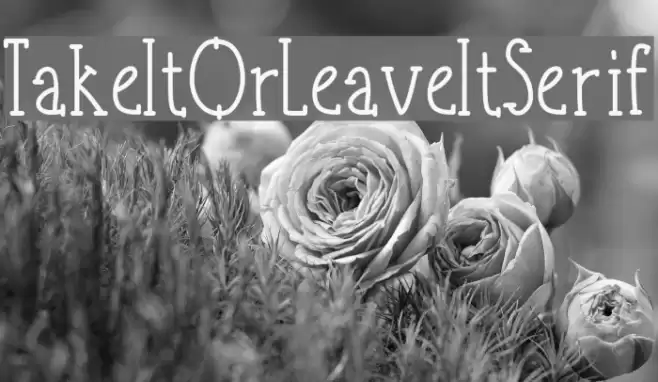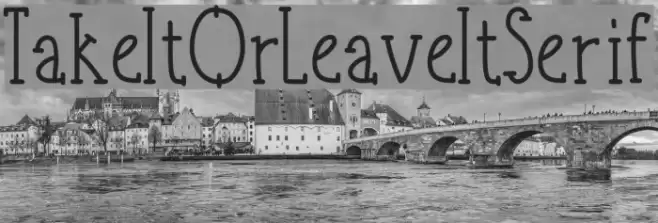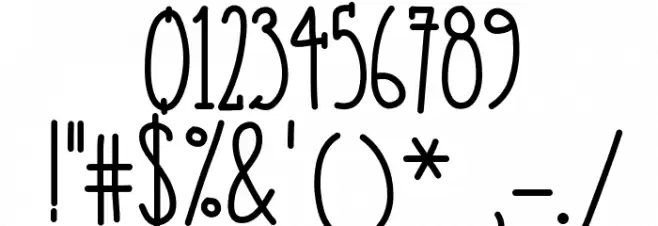
TakeItOrLeaveItSerif Font
TakeItOrLeaveItSerif Description
This font features a playful and whimsical design with elongated, narrow characters that have a hand-drawn appearance. The uppercase letters are tall and slender, while the lowercase letters maintain a consistent style with a slightly more relaxed form. The numbers are rounded and maintain the same quirky aesthetic. Special characters are creatively integrated, enhancing the font's unique personality. The overall look is casual yet distinctive, making it suitable for projects that require a touch of creativity and individuality.
A playful, hand-drawn font with elongated, narrow characters from Handwritten fonts.
- Overall Style: Whimsical